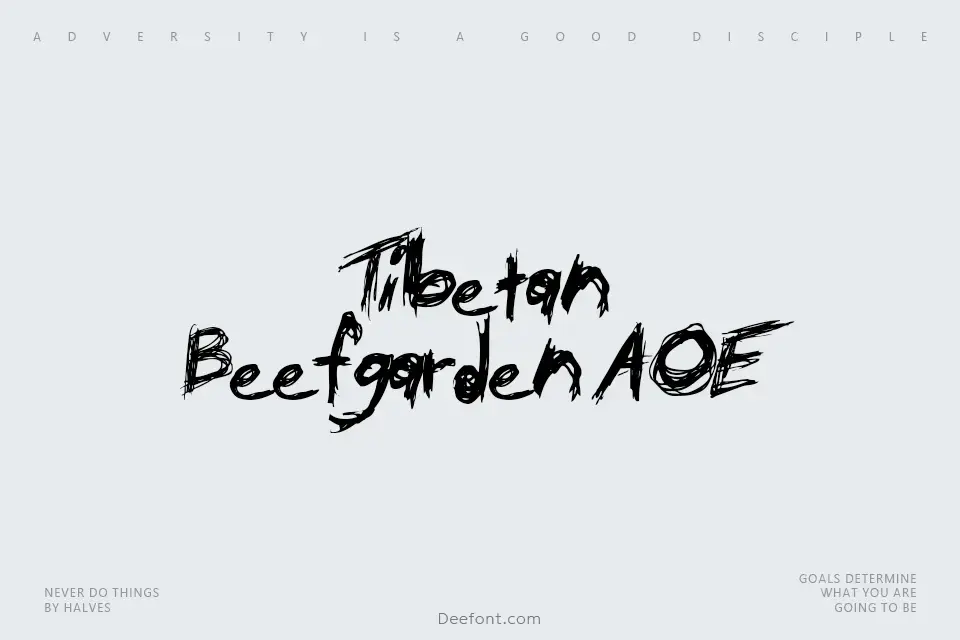
Tibetan Beefgarden AOE Font
Tibetan Beefgarden AOE is an unconventional display typeface that combines scratched, distressed aesthetic with quirky character formation, creating a visually striking effect perfect for horror movie titles, Halloween promotions, and edgy graphic design projects. Its irregular letterforms and weathered appearance evoke a sense of chaos and decay, making it ideal for posters, event flyers, album artwork, and any design requiring an attention-grabbing, slightly chaotic visual impact that commands immediate viewer engagement.